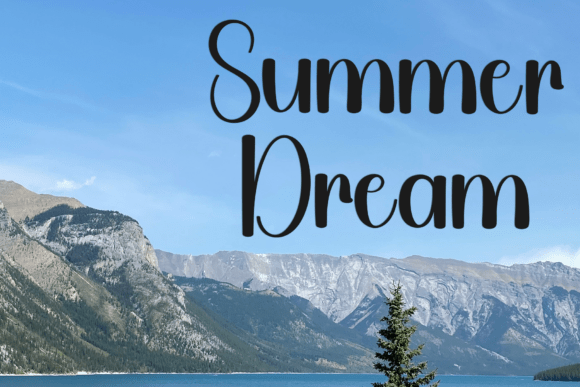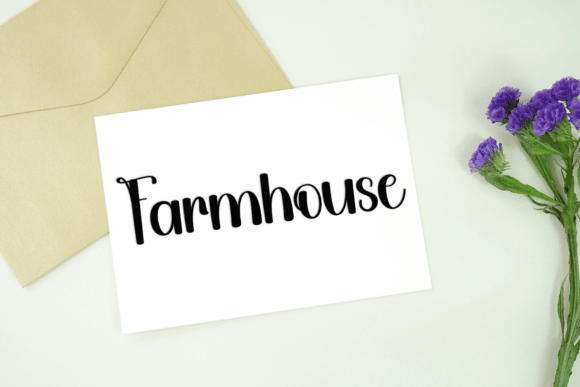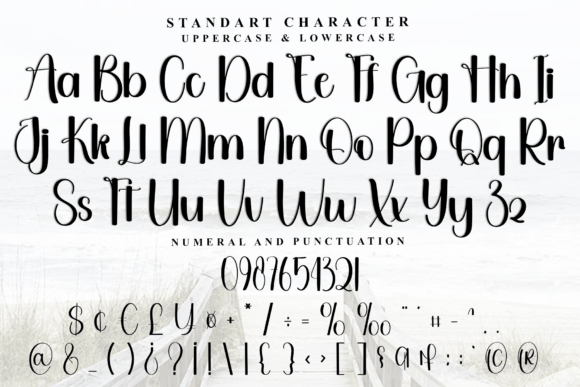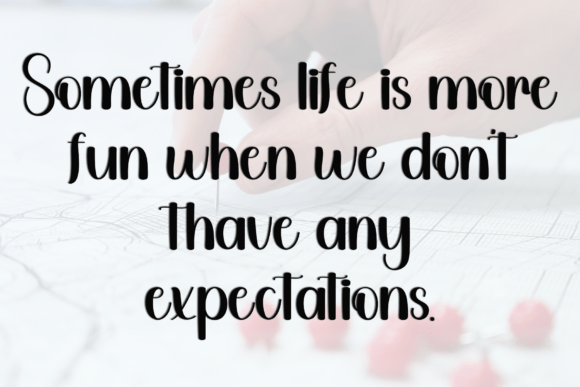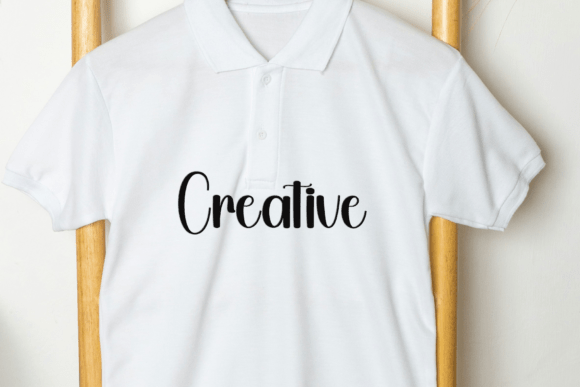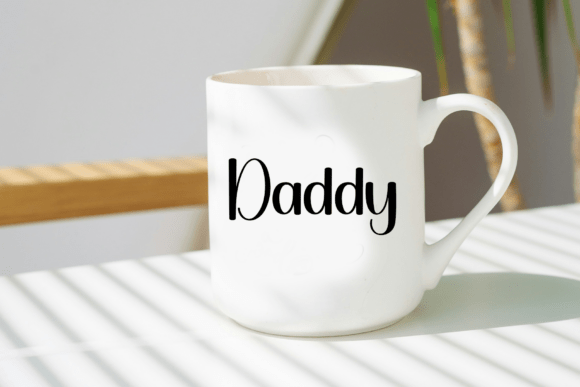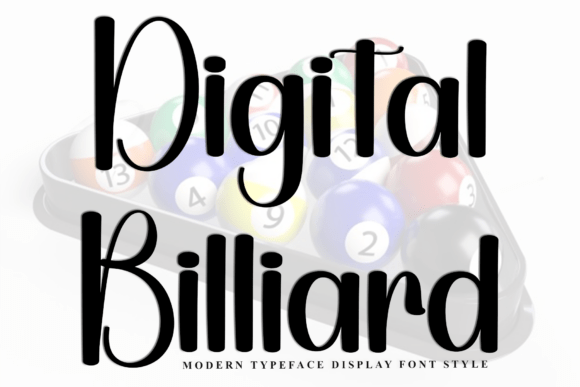
Introducing Digital Billiard Font: A Festive and Merry Typeface for the Holiday Season
The holiday season is upon us, and what better way to get into the spirit than with a font that’s as festive and merry as Digital Billiard? This decorative typeface is designed to capture the magic of the holiday season, with its whimsical flair and enchanting elements. Whether you’re a designer, crafter, or simply someone who loves the holidays, Digital Billiard Font is the perfect addition to your typography collection.
A Font that Embodies the Spirit of the Holiday Season
Digital Billiard Font is more than just a typeface – it’s an experience. With its intricate details and decorative elements, this font is sure to transport you to a world of wonder and enchantment. The whimsical flair of the letters is reminiscent of traditional holiday decorations, making it the perfect choice for greeting cards, gift tags, and holiday-themed projects.
Whether you’re a professional designer or a crafter who loves to make handmade gifts, Digital Billiard Font is a versatile typeface that can be used in a variety of projects. Here are just a few ideas to get you started:
- Greeting cards: Create personalized holiday greeting cards that will make your loved ones feel special.
- Gift tags: Add a touch of magic to your gifts with custom gift tags that feature the Digital Billiard Font.
- Holiday-themed projects: From invitations to party decorations, this font is perfect for any holiday-themed project.
One of the best things about Digital Billiard Font is that it’s PUA encoded, which means you can access all of the amazing glyphs and ligatures with ease. This makes it easy to customize your text and add a touch of personality to your designs. Whether you’re a seasoned designer or just starting out, PUA encoding makes it easy to get the most out of this beautiful font.
Bring a Cheerful and Nostalgic Ambiance to Your Words
There’s something special about the holiday season that evokes feelings of nostalgia and cheer. Digital Billiard Font captures this feeling perfectly, with its classic design and whimsical flair. When you use this font in your designs, you’ll be able to evoke the same feelings of wonder and enchantment in your audience.
Why Choose Digital Billiard Font?
With so many fonts to choose from, why should you choose Digital Billiard Font? Here are just a few reasons why this font stands out:
- Unique design: Digital Billiard Font has a unique and distinctive design that will make your projects stand out.
- Versatility: This font can be used in a variety of projects, from greeting cards to holiday-themed decorations.
- Easy to use: With PUA encoding, it’s easy to access all of the amazing glyphs and ligatures.
- Festive and merry: This font captures the spirit of the holiday season perfectly, making it the perfect choice for any holiday-themed project.
Digital Billiard Font is a beautiful and festive typeface that’s perfect for the holiday season. With its decorative elements, whimsical flair, and PUA encoding, this font is sure to bring a touch of enchantment to your designs. Whether you’re a designer, crafter, or simply someone who loves the holidays, Digital Billiard Font is a must-have addition to your typography collection. So why wait? Get your copy of Digital Billiard Font today and start creating magical holiday-themed projects!